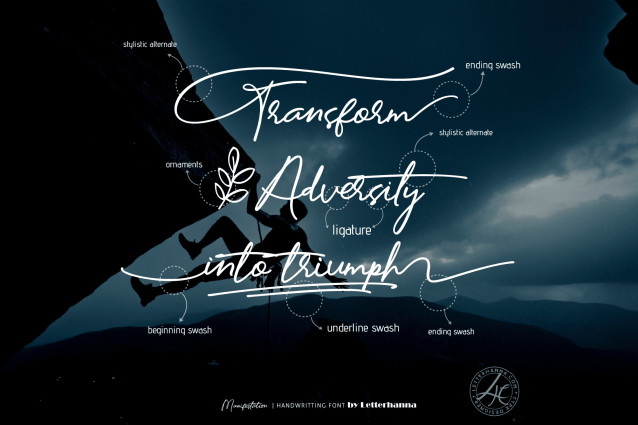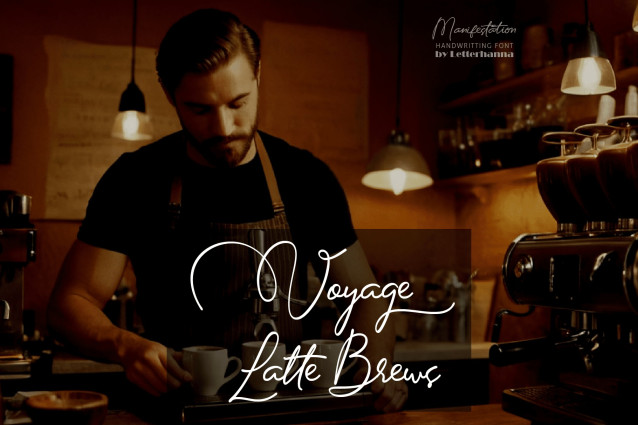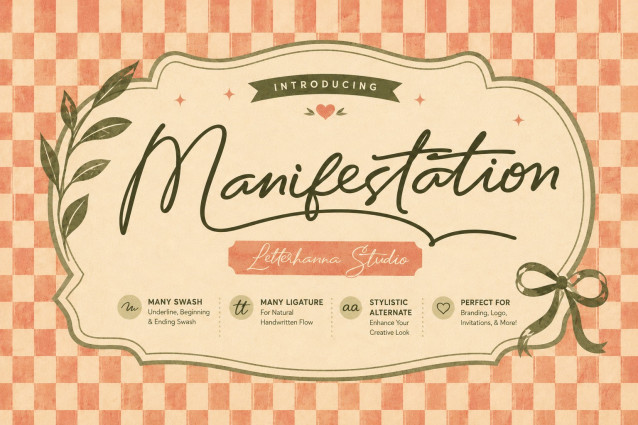
Manifestation Font
Manifestation Font is a captivating handwritten script font that brings your words to life with an authentic and expressive touch. Its elegant curves and natural flow will lend a personal charm to any project, from handwritten notes and invitations to creative branding and social media content.
Manifestation Font is perfect for:
• Adding a touch of personality to handwritten letters and cards.
• Creating eye-catching logos and branding materials.
• Crafting unique social media posts and design elements.
• Expressing yourself creatively in journals and artwork.